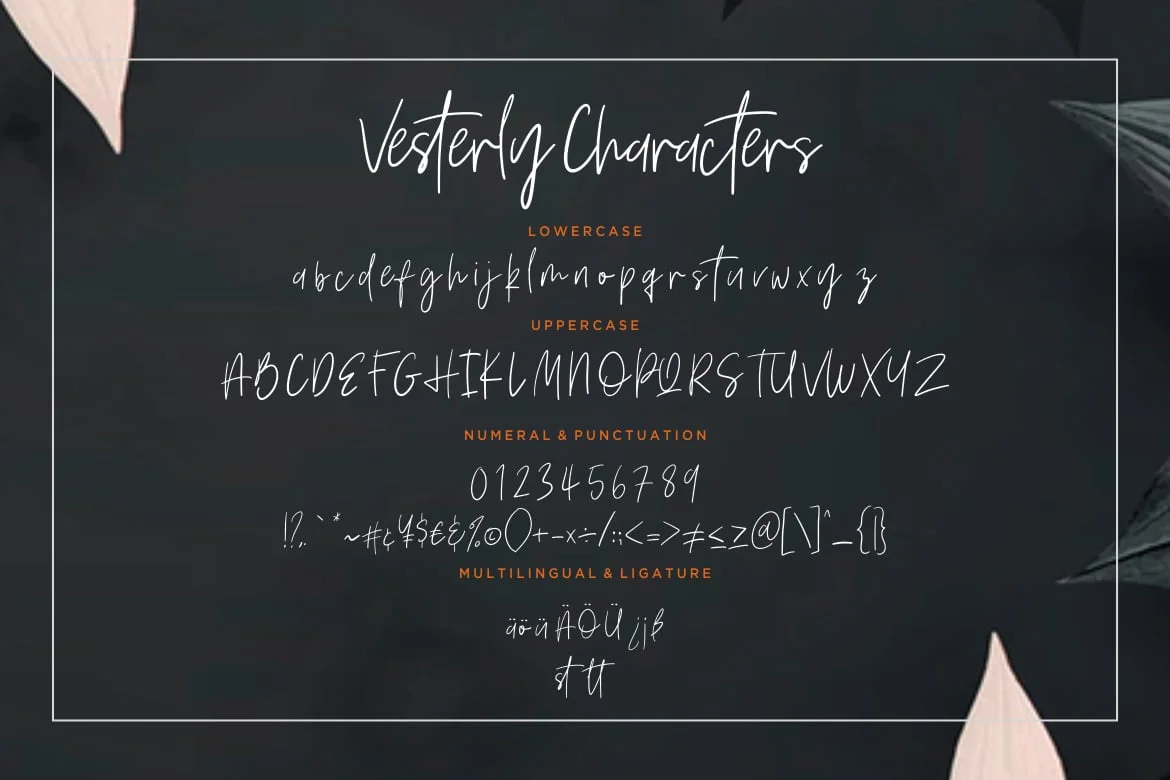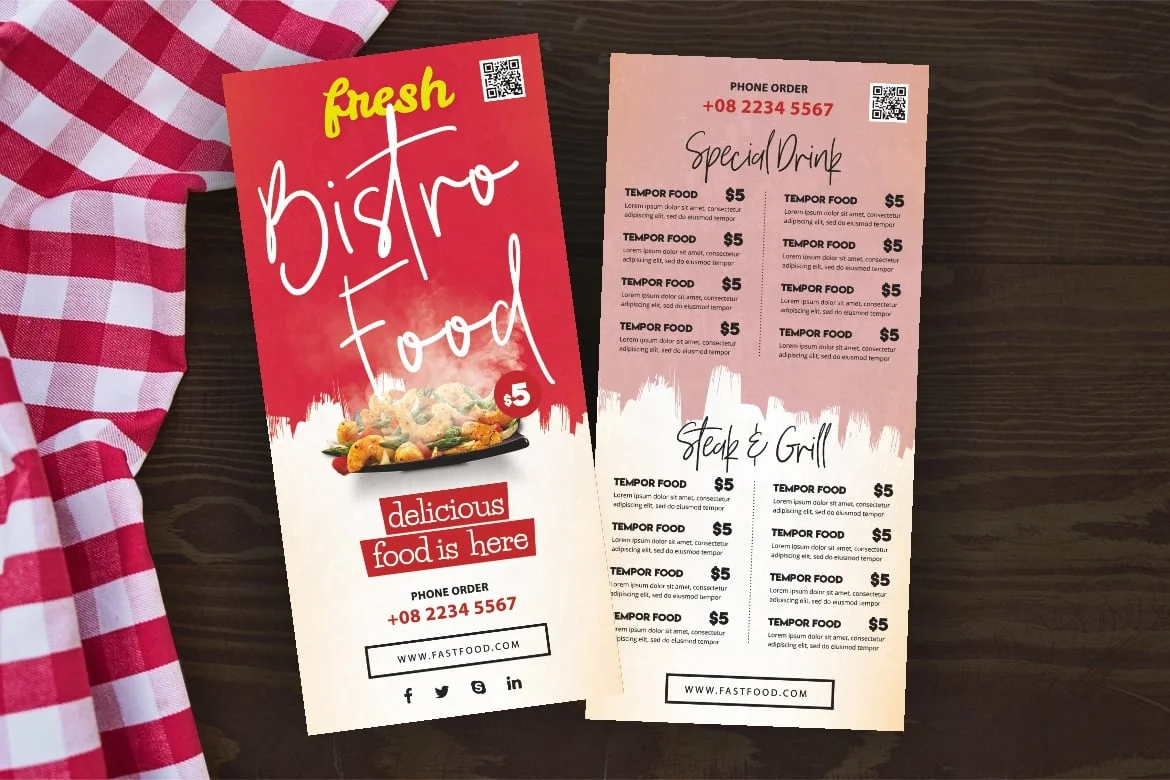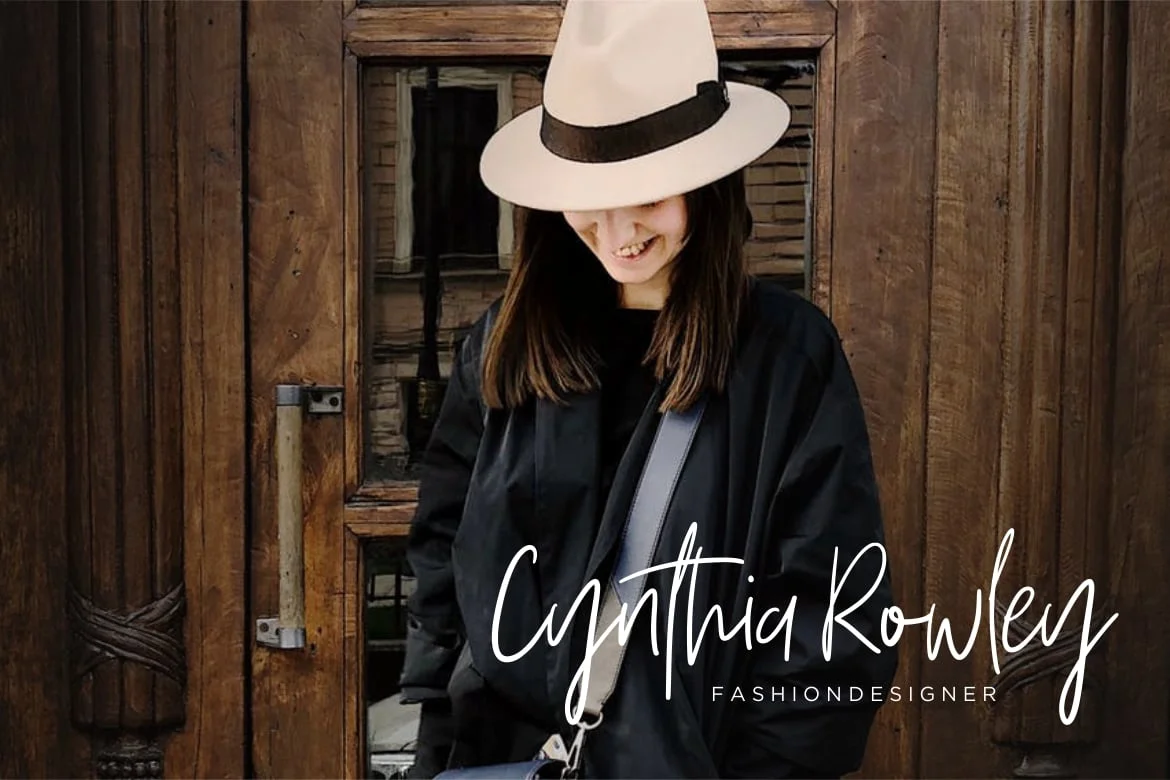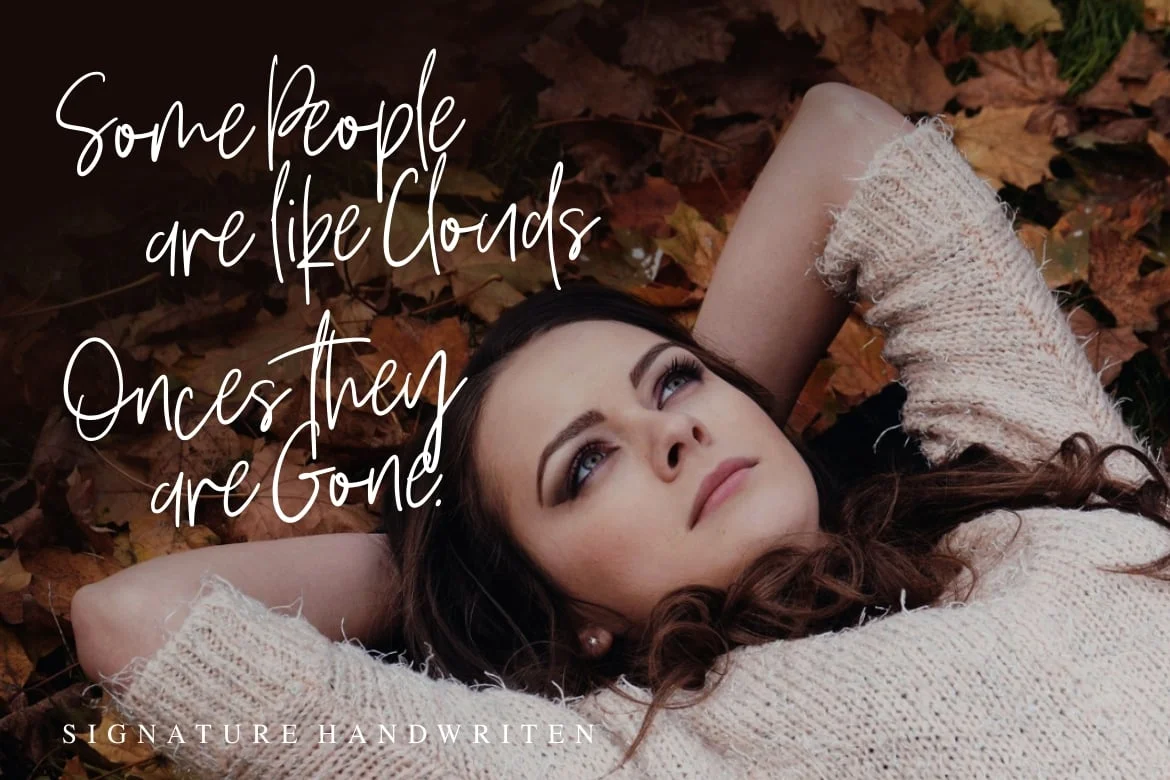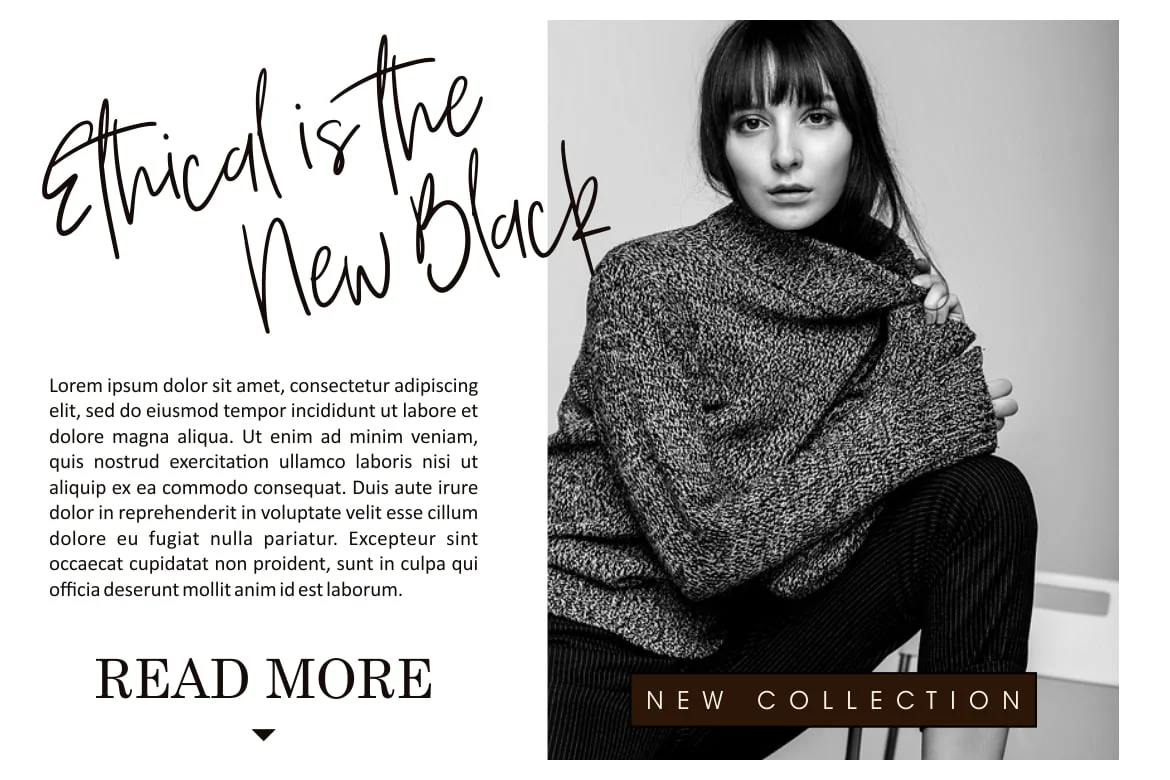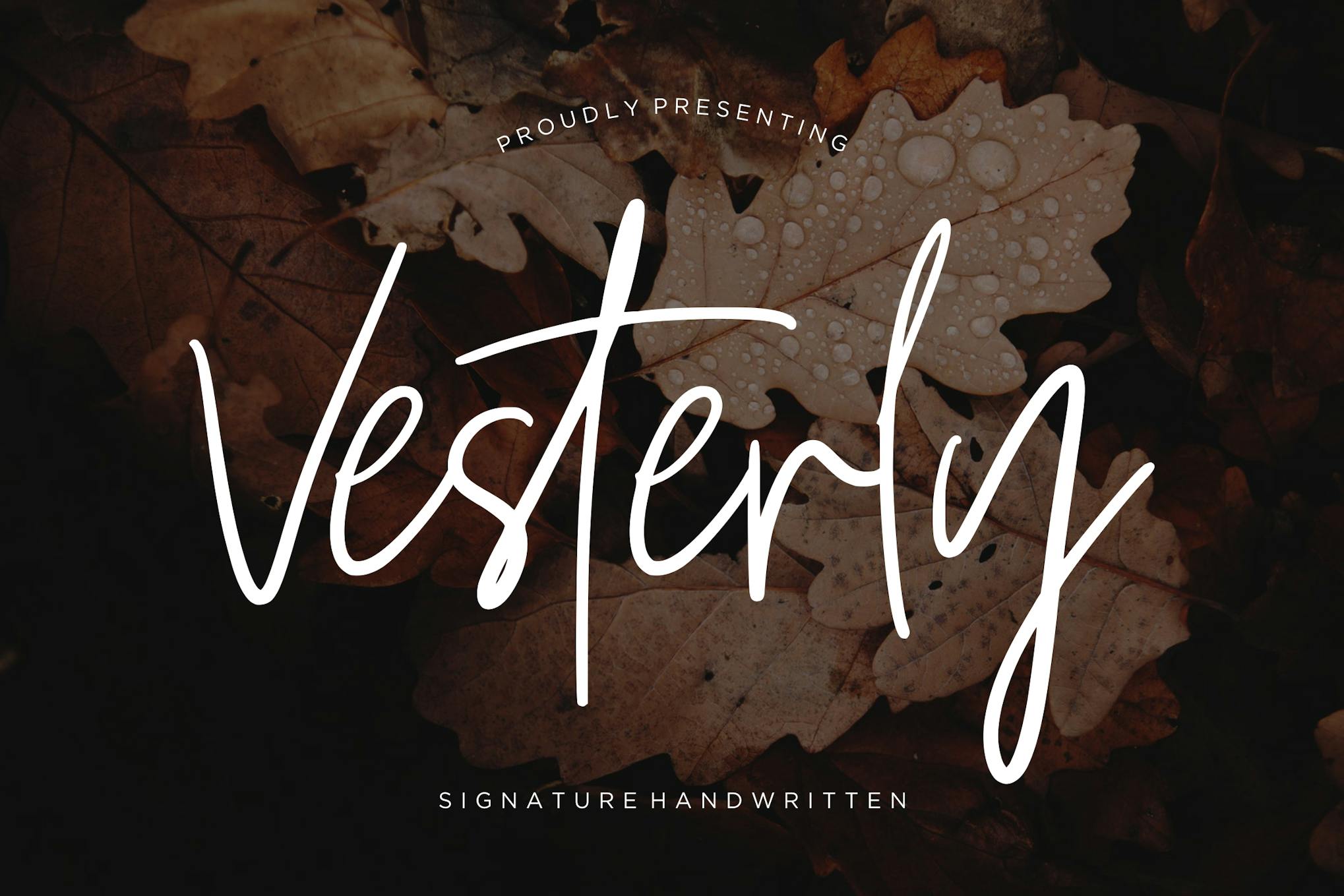
Vesterly Signature Wedding Font
The Vesterly Signature Wedding Font excels in vintage design applications including nostalgic wedding invitations, vintage bridal branding, retro ceremony logos, classic product packaging, vintage business cards, nostalgic portfolios, retro greeting cards, vintage social media graphics, classic event signage, and nostalgic marketing materials. Its vintage script style makes it perfect for projects requiring vintage elegance that communicates yesteryear charm and establishes retro brand positioning with audiences seeking vintage wedding experiences and nostalgic sophistication.
What makes the Vesterly Signature Wedding Font genuinely exciting is its exceptional ability to capture the romantic nostalgia and timeless beauty of vintage weddings through authentically crafted letterforms. The font features flowing, vintage-inspired strokes with nostalgic flourishes and retro proportions that create a distinctly yesteryear appearance. Each character displays remarkable attention to vintage detail with classic curves, nostalgic connections, and retro spacing that give text a genuinely vintage, hand-lettered quality. The font's vintage character and nostalgic rhythm create an atmosphere of romantic yesteryear while maintaining elegant sophistication and wedding authenticity.
The Vesterly Signature Wedding Font family typically includes regular weight with extensive character coverage, featuring uppercase and lowercase letters, numerals, punctuation marks, and international characters. The typeface often incorporates stylistic alternates, contextual ligatures, and vintage swashes that enhance its signature nostalgia. These additional elements provide designers with creative flexibility to customize text appearance and achieve more natural-looking vintage handwriting that reflects the font's nostalgic and retro character.
This nostalgic signature font distinguishes itself through its remarkable balance of vintage charm and contemporary usability. Unlike artificially aged fonts that can appear contrived, Vesterly Signature Wedding Font possesses authentic vintage character that resonates with couples who appreciate genuine retro aesthetics. The font's vintage character makes it essential for vintage wedding planners, nostalgic brands, and retro celebration businesses where creating authentic vintage experiences and nostalgic memories is fundamental to success in vintage wedding markets.
The Vesterly Signature Wedding Font offers designers an exceptional opportunity to incorporate authentic vintage elegance into their nostalgic wedding projects. From vintage wedding venues to retro bridal brands, this font delivers the nostalgic signature aesthetic that resonates with couples seeking authentic vintage and romantically nostalgic wedding experiences. Its vintage appeal ensures your designs communicate yesteryear charm while the signature styling adds distinctive personality that reflects vintage romance and nostalgic sophistication in any application requiring retro typography solutions.